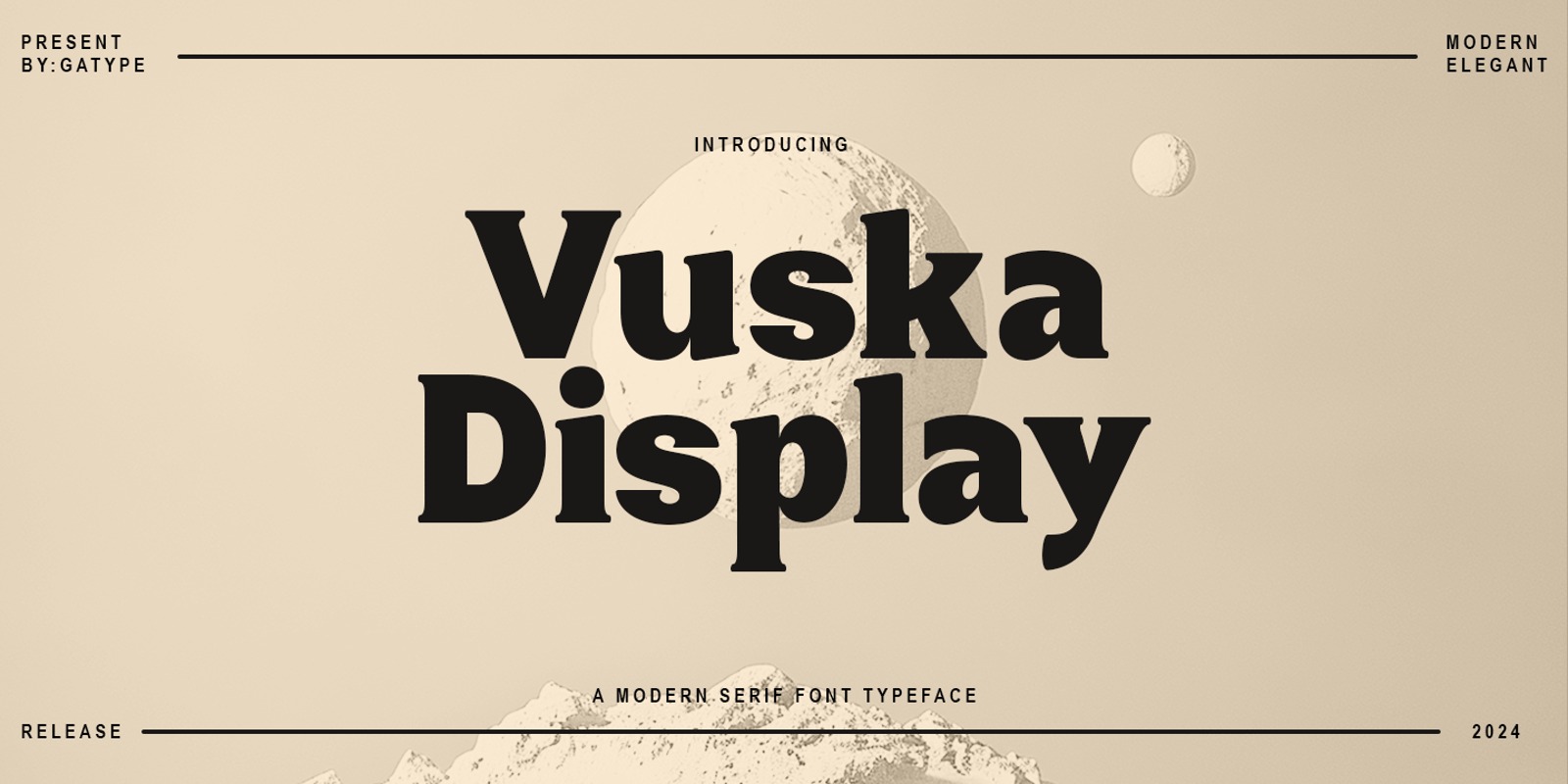
Vuska Black – Modern Serif Font
Vuska Black – Modern Serif Font brings a balanced structure and contemporary look, making it suitable for both digital and print design. Vuska Display is a font with a modern and elegant style, featuring clean lines and sleek design. Its readable yet attractive characters make it suitable for various global design needs, such as logos, posters, and professional branding.